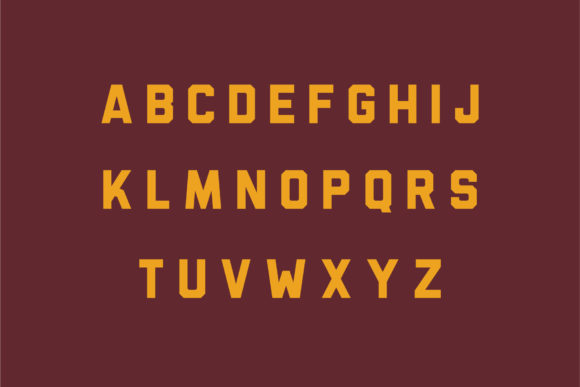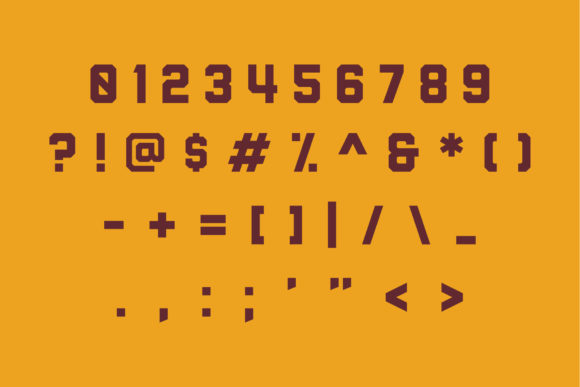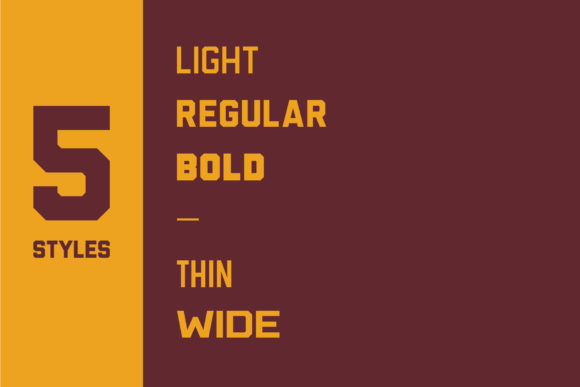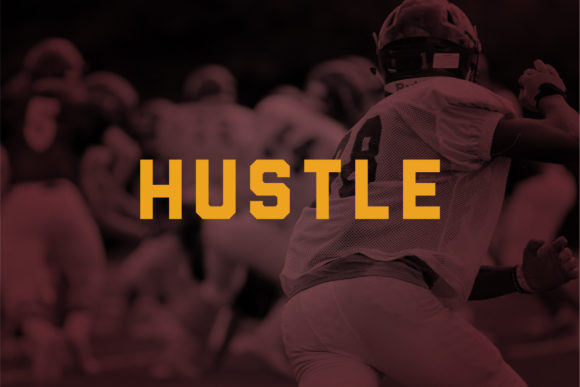
The Ultimate Game-Changer for Designers: Gameday Font
As a designer, there’s nothing quite like the thrill of bringing a project to life. You’ve poured your heart and soul into it, and just as you’re about to hit publish, you’re stuck. The font just isn’t doing it justice. That’s where Gameday Font comes in – a versatile, blocky sans serif font inspired by the sports branding world. It’s the perfect solution for designers who want to add a touch of excitement and energy to their work.
With Gameday Font, you can create anything from sleek sports jerseys to high-energy event promotions. Its bold, playful style is guaranteed to grab attention and leave a lasting impression. Whether you’re working on a personal project or a client brief, Gameday Font is the ultimate game-changer for designers who want to take their work to the next level.
Gameday Font Key Features
- Font Family: Gameday Font is a modern sans-serif font family designed specifically for sports and entertainment.
- Character Set: Includes a comprehensive set of characters, including uppercase and lowercase letters, numbers, punctuation, and special characters, as well as ligatures and alternates.
- Resolution: Designed to be highly legible at high resolutions, making it suitable for use in digital displays and print materials.
- Unique Characteristics: Features a unique, modern design with clean lines, geometric shapes, and a bold, athletic feel that is perfect for sports and entertainment branding.
Gameday Font Review
Gameday Font is a bold, attention-grabbing font designed specifically for sports and gaming related content. ✨ I appreciate the font’s energetic feel, making it perfect for headlines and titles. The font’s thick lines and geometric shapes give it a modern, edgy look that’s sure to grab attention.
However, there are a few limitations to consider. ⚠️ The font’s limited character set and lack of italics may make it difficult to use in certain situations. Additionally, the font’s boldness can sometimes make it difficult to read in smaller sizes or in complex compositions.
Here are some key pros and cons:
- ✨ Bold, energetic feel
- ✨ Perfect for sports and gaming related content
- ⚠️ Limited character set
- ⚠️ No italics available
- ⚠️ Can be difficult to read in smaller sizes or complex compositions
Overall, I think Gameday Font is a great choice for designers who need a bold, attention-grabbing font for sports and gaming related projects. However, it’s not a versatile font and may not be suitable for all design needs.
Tip: Use Gameday Font to create eye-catching headlines and titles for your sports-themed designs.
Tip: Use Gameday Font to create custom sports-themed graphics and illustrations.
Tip: Use Gameday Font to create engaging presentations and documents for sports-related topics.
Gameday Font is ideal for:
- Sports-themed designs and graphics
- Event promotions and marketing materials
- Sports team logos and branding
- Football, basketball, and baseball-themed designs
Alternatives to Gameday Font
Open Sans is a modern sans-serif font that works well for digital applications, including websites and mobile apps. It’s highly legible and versatile, making it suitable for a wide range of uses. In comparison to Gameday Font, Open Sans is more minimalist and lacks the sporty feel, but it’s a great choice when you need a clean and professional look.
Bebas Neue is a sans-serif font with a strong, bold feel that’s perfect for sports and action-related designs. It’s highly customizable and can be used for headings, titles, and even body text. Compared to Gameday Font, Bebas Neue has a more aggressive and dynamic feel, making it ideal for projects that require a lot of energy and excitement.
Montserrat is a geometric sans-serif font that’s highly versatile and suitable for a wide range of designs, from fashion to technology. It’s highly legible and works well for both digital and print applications. Compared to Gameday Font, Montserrat has a more urban and modern feel, making it a great choice when you need a font that’s both stylish and sophisticated.
Q: Can I customize Gameday Font for my specific design project?
Yes, Gameday Font is a highly customizable font that can be modified to suit your specific design needs. You can adjust the font’s weight, width, and style using font editing software, such as FontForge or Glyphs. However, be aware that significant modifications may affect the font’s legibility and overall aesthetic.